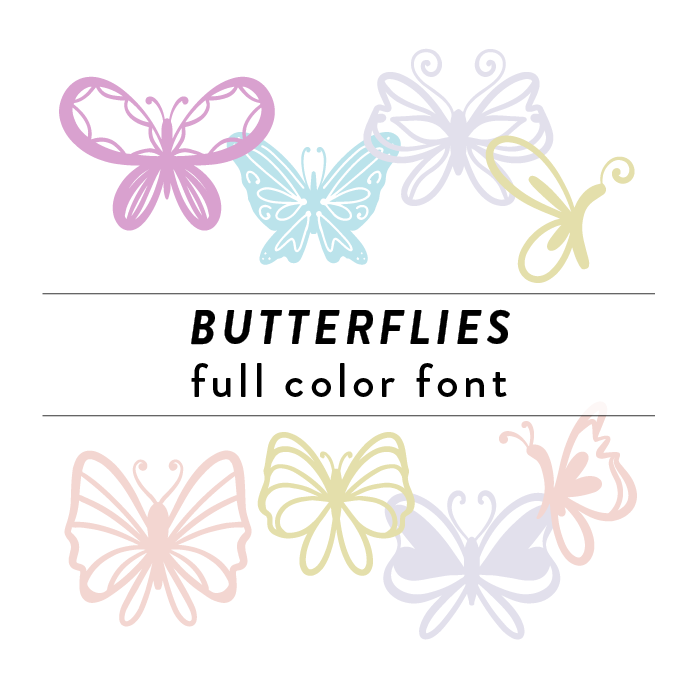
Butterflies Full Color Font is a whimsical and vibrant font design featuring a variety of colorful butterflies. This decorative font adds a playful and nature-inspired touch to any design project. This font is a OTF craft font that will appear in color only when used with the silhouette software.